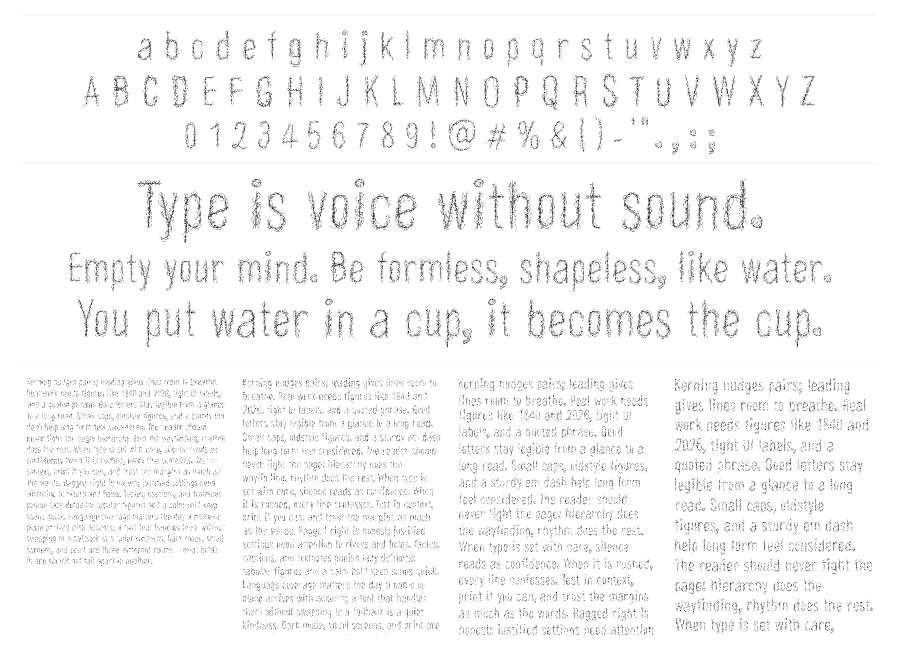
Aramayka
Aramayka is a display font where every character is overtaken by a tangle of thorny branches, as if the letters grew wild and were never trimmed. The effect reads clearly at large sizes while the fine, spiky texture demands attention. It belongs on album covers, horror-adjacent branding, or anything that needs to feel untamed.